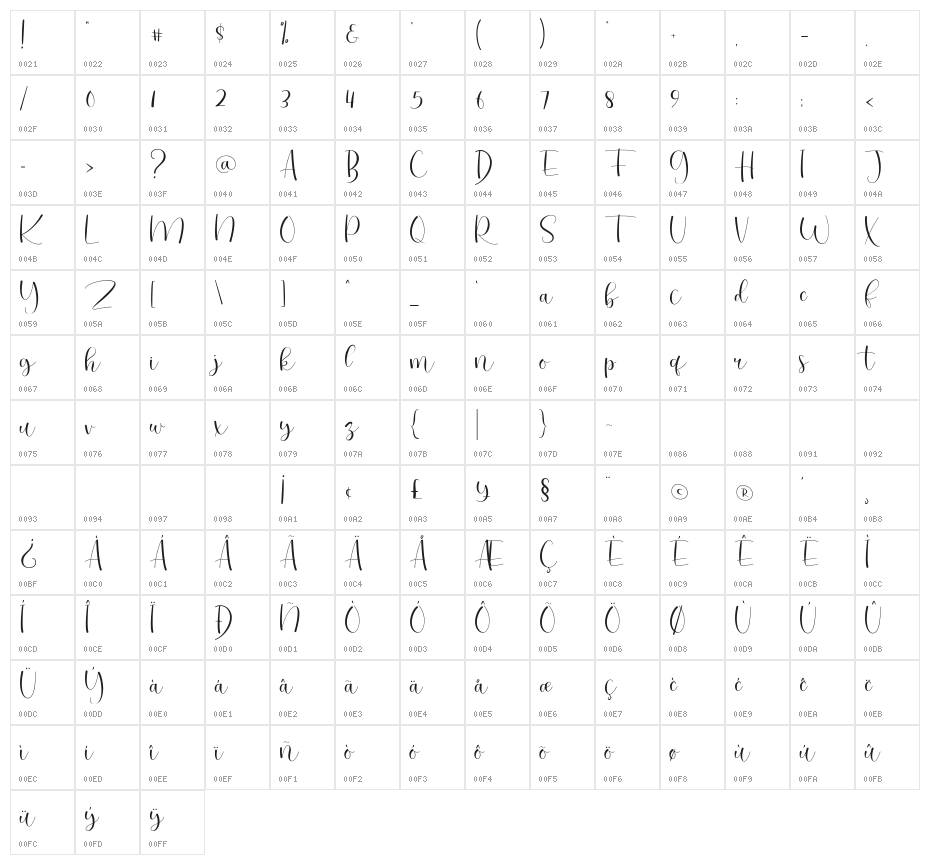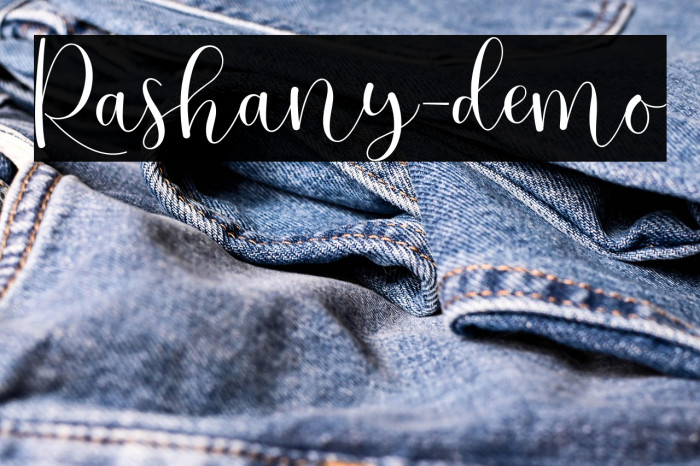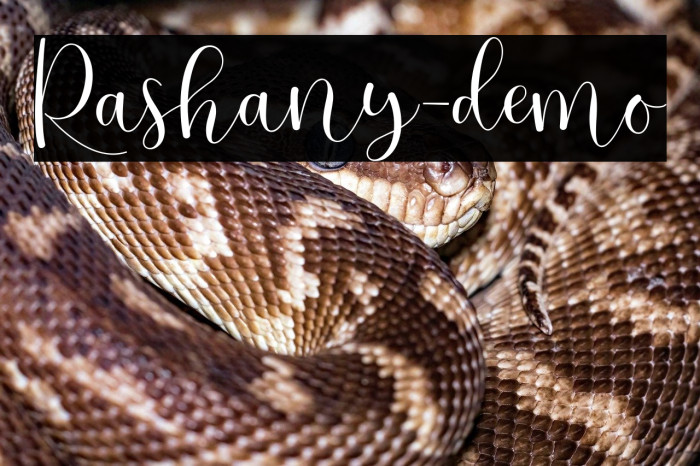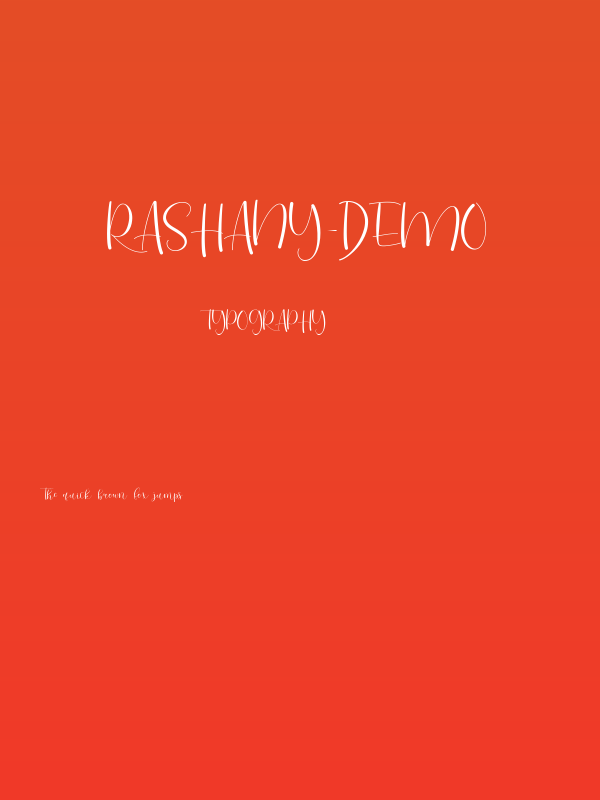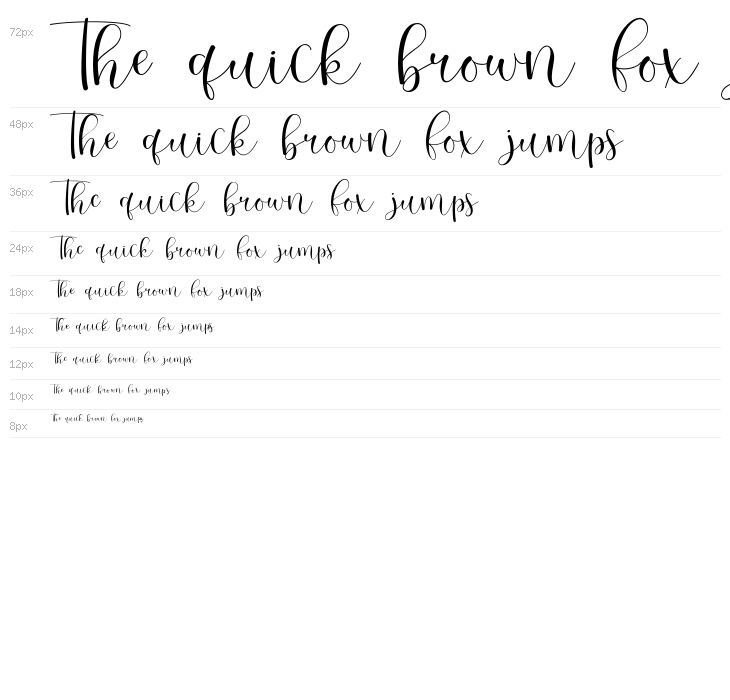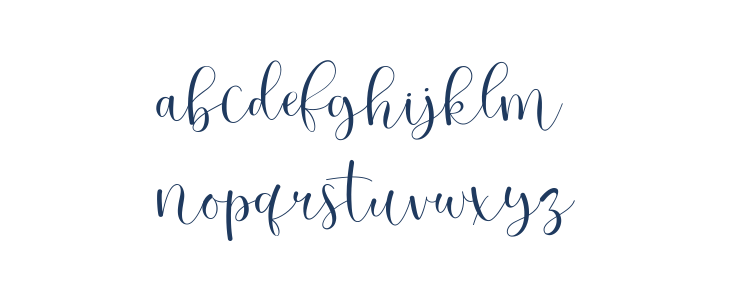
Rashany-demo Font
Rashany-demo Description
This font features an elegant and flowing script style, characterized by its smooth, cursive strokes and graceful curves. The uppercase letters are tall and slender, with a slight slant that adds a sense of movement and fluidity. The lowercase letters are more rounded and connected, creating a harmonious and cohesive look. The numerals and special characters maintain the same fluidity, ensuring consistency throughout. This font exudes a sense of sophistication and charm, making it ideal for projects that require a touch of elegance.
| Proposed Projects | Ideal for wedding invitations, greeting cards, branding, and elegant packaging. |